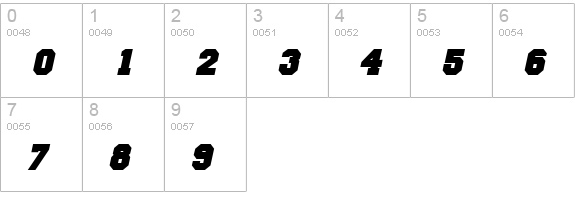
LettermanSolid Italic Font Details
LettermanSolid Italic is a distinctive, italic variant in the LettermanSolid typeface family \xE2\x80\x94 well suited to design and typography projects.
LettermanSolid Italic font is a captivating and stylish typeface that exudes a sense of elegance and sophistication. This font effortlessly combines boldness with a touch of modernity, making it perfect for various design projects. Its sleek and slanted letterforms create a unique visual appeal that is sure to catch the eye of any reader. The LettermanSolid Italic font is a versatile choice for both headings and body text, as it strikes the perfect balance between legibility and artistic flair. Whether you're working on a logo, website, poster, or any other creative endeavor, this font is guaranteed to add a touch of professionalism and charm to your design. One of the best aspects of the LettermanSolid Italic font is that it is freely available to download at FontsMarket.com. This means that you can easily access and utilize this stunning font without any financial burden. By offering this font for free, FontsMarket.com aims to support creativity and empower designers to bring their visions to life without any constraints. With its effortlessly stylish and bold appearance, the LettermanSolid Italic font is a must-have for any designer or typographer looking to make a statement. Its availability for free download at FontsMarket.com ensures that it is accessible to all, enabling designers to elevate their projects with this exceptional font.